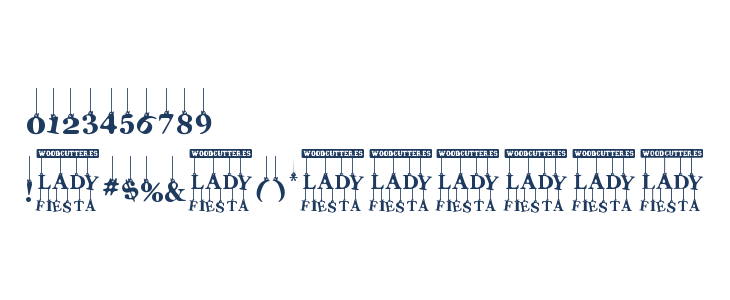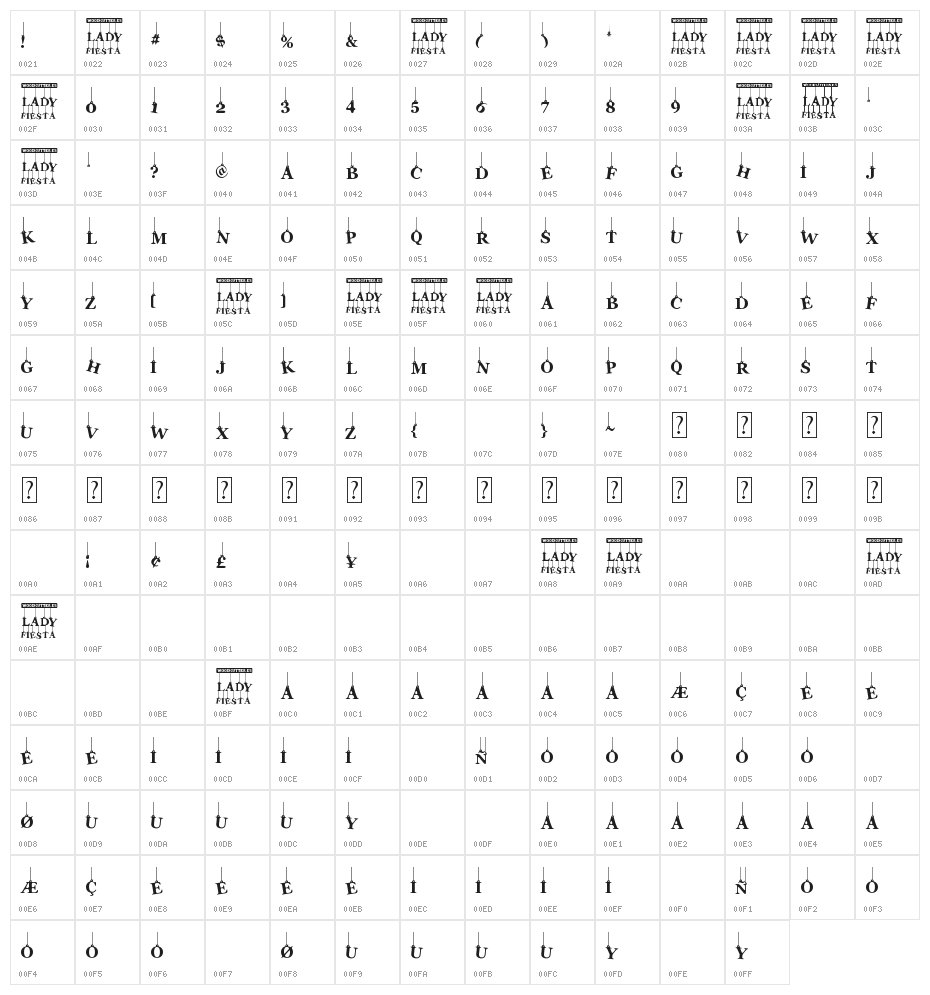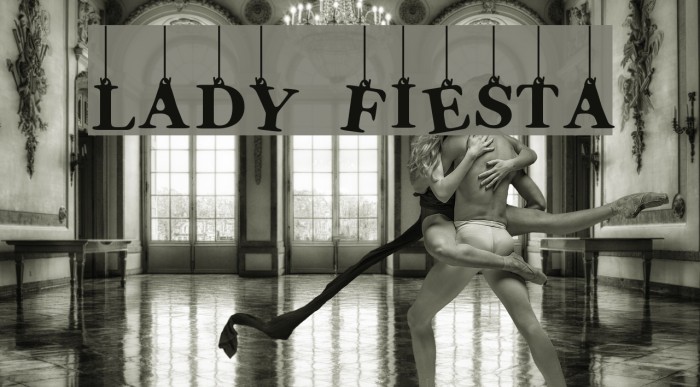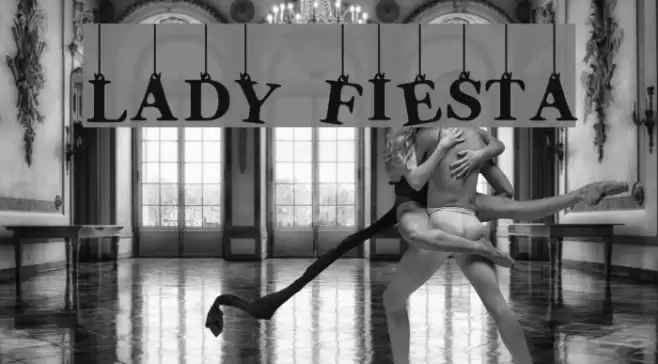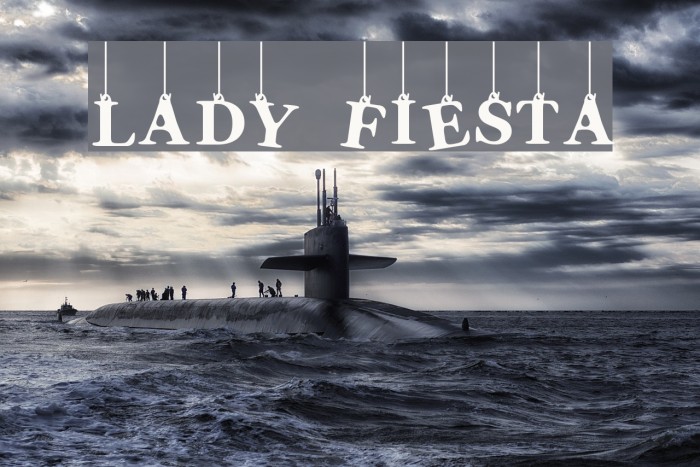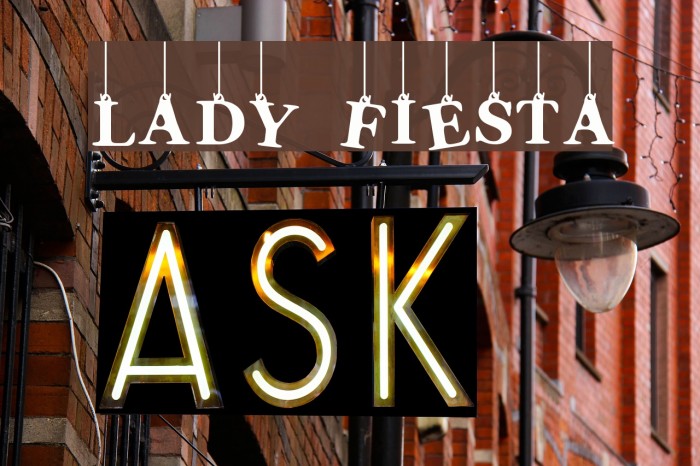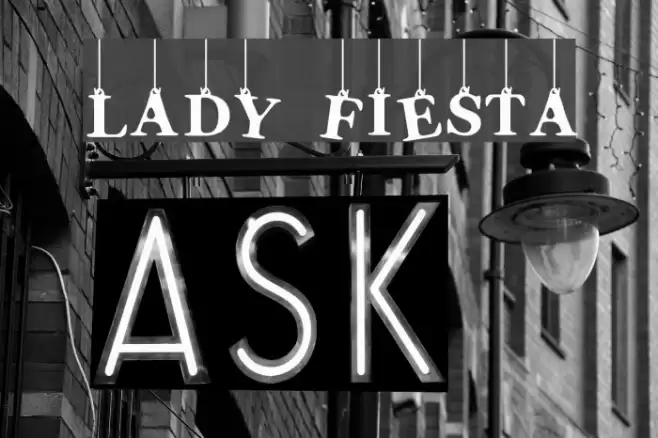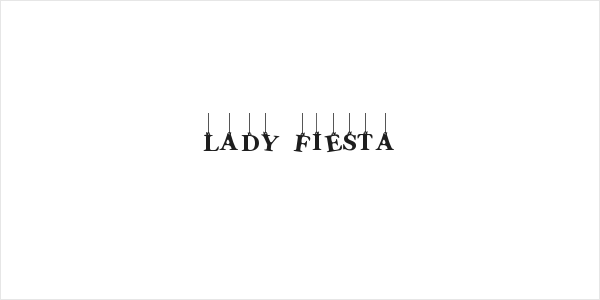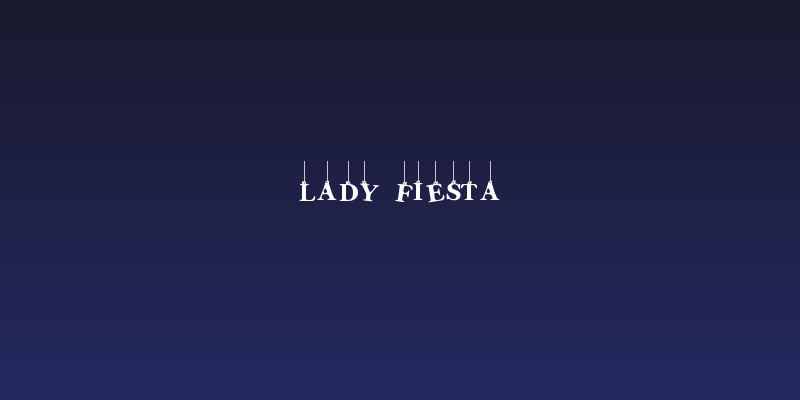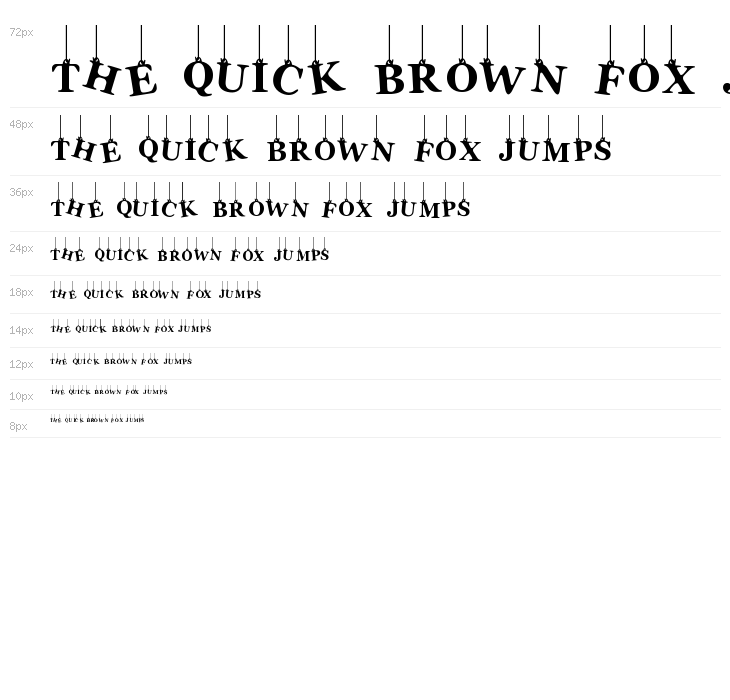
Lady Fiesta Font
Lady Fiesta Description
This font features a playful and decorative style, with each character appearing to hang from a string, creating a festive and whimsical appearance. The uppercase and lowercase letters maintain a consistent design, with bold strokes and a slight tilt that adds to the dynamic feel. The numerals and special characters are designed to match the overall aesthetic, ensuring a cohesive look across all text. This font's unique design makes it stand out, perfect for adding a touch of fun and creativity to any project.
| Proposed Projects | Ideal for party invitations, festive banners, children's book covers, and playful branding materials. |